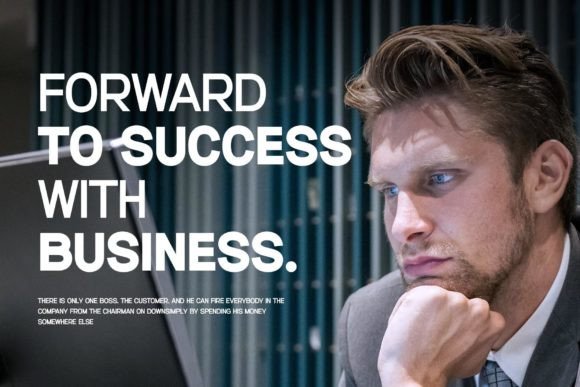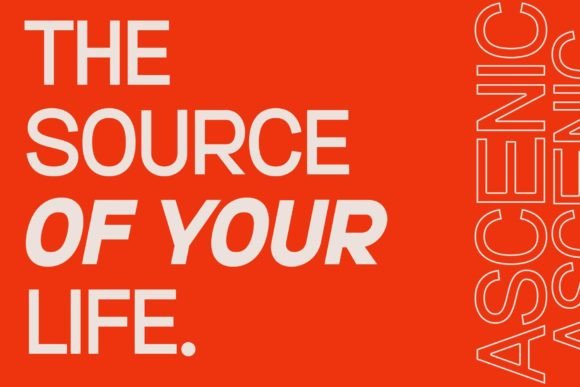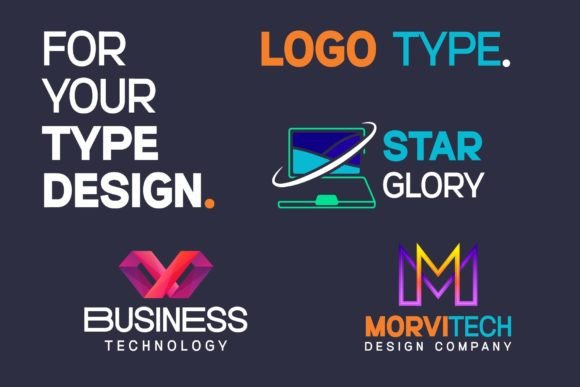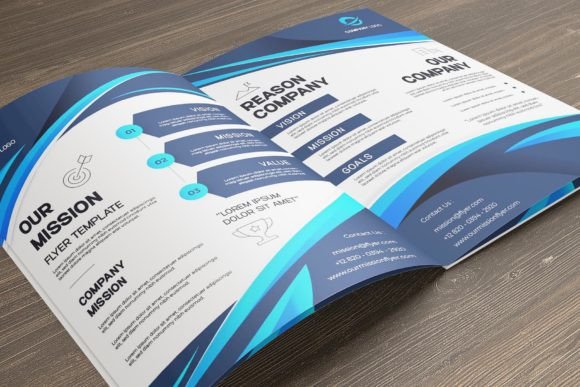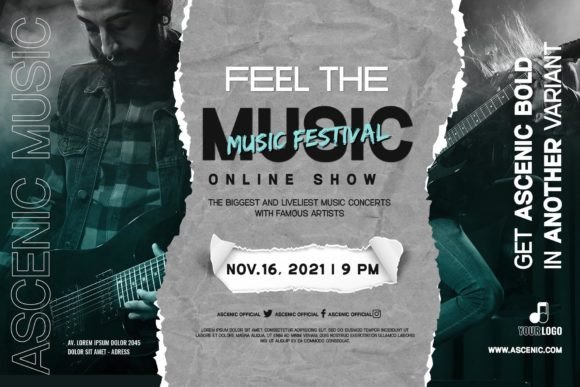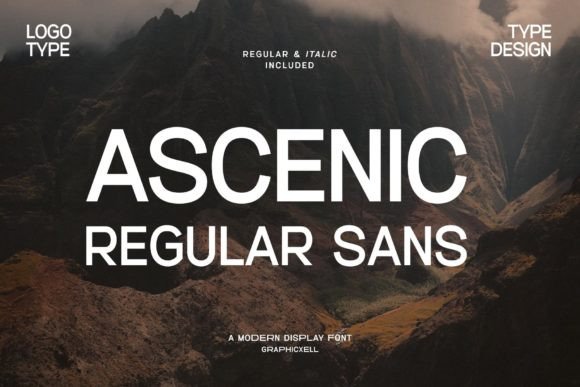
I still remember the frustration of working on a project, hours spent crafting the perfect design, only to realize that the font I chose didn’t quite fit. The lines were too bold, the edges too rough, and the overall look just didn’t scream ‘contemporary’ as I had hoped. My client wanted something modern, sleek, and professional – and I was stuck. That’s when I stumbled upon the Ascenic Font, a game-changer for designers like me.
First Impressions: A Modern Sans-Serif Marvel
The Ascenic Font is a stunning sans-serif font that boasts sleek lines, crisp edges, and a balanced structure. It’s perfect for creating logos, titles, and more – basically, anything that needs a modern and attractive touch. What caught my attention was its PUA encoding, which means you can access all glyphs and swashes effortlessly! No more tedious searching for the perfect character – it’s all right there at your fingertips.
• ✨ Sleek and modern design that’s perfect for contemporary projects
• ✅ Crisp edges and balanced structure for a professional look
• 💡 PUA encoding for easy access to glyphs and swashes
• 🎉 Highly versatile and suitable for various design applications
• 🤔 Some users might find the font a bit too minimalist for certain projects
• ⚠️ Limited availability of certain language scripts
The Designer Behind Ascenic Font: A Backstory
The Ascenic Font was designed with the goal of creating a modern and versatile sans-serif font that could be used for a wide range of design applications. The designer, inspired by the latest trends in contemporary design, aimed to create a font that was both sleek and elegant. With its PUA encoding and extensive glyph library, Ascenic Font has quickly become a favorite among designers.
Author Graphicxell
Q: What is PUA encoding, and how does it benefit designers?
A: PUA (Private Use Area) encoding allows designers to access a wide range of glyphs and swashes that are not available in standard font encoding. This means that designers can create more complex and visually appealing designs with ease.
Q: Is Ascenic Font suitable for body text?
A: While Ascenic Font is a beautiful font, it’s primarily designed for headings and titles. For body text, you may want to consider a font with better legibility and flow.